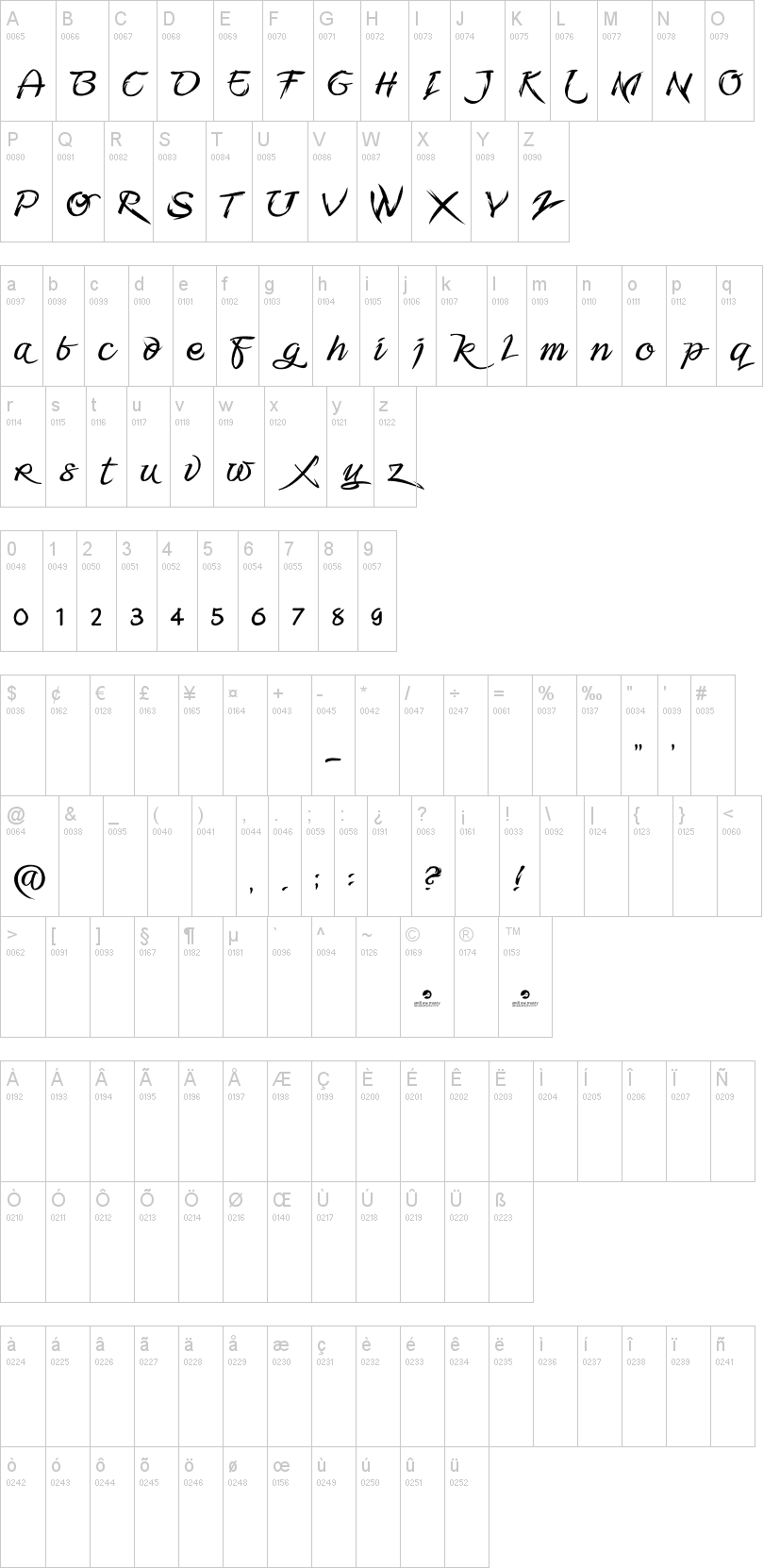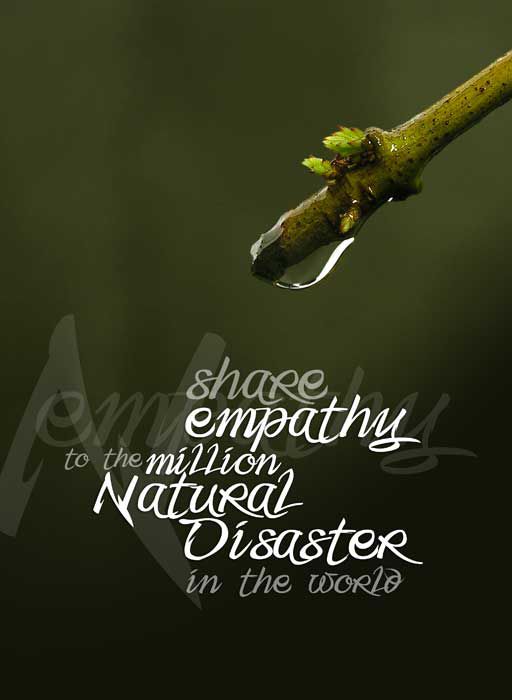
Шрифт Fmiring Campotype One
FREE FONT DOWNLOAD - Person's handwriting can change the shape and style over time. I usually write a neat series of upright concatenated text. But there are times where I have to write quickly and looks a bit messy. This fonts are one example, which is inspired and modified from my handwriting at a time. F-Miring (Font Miring: Indonesian) was meaning Italic Font.